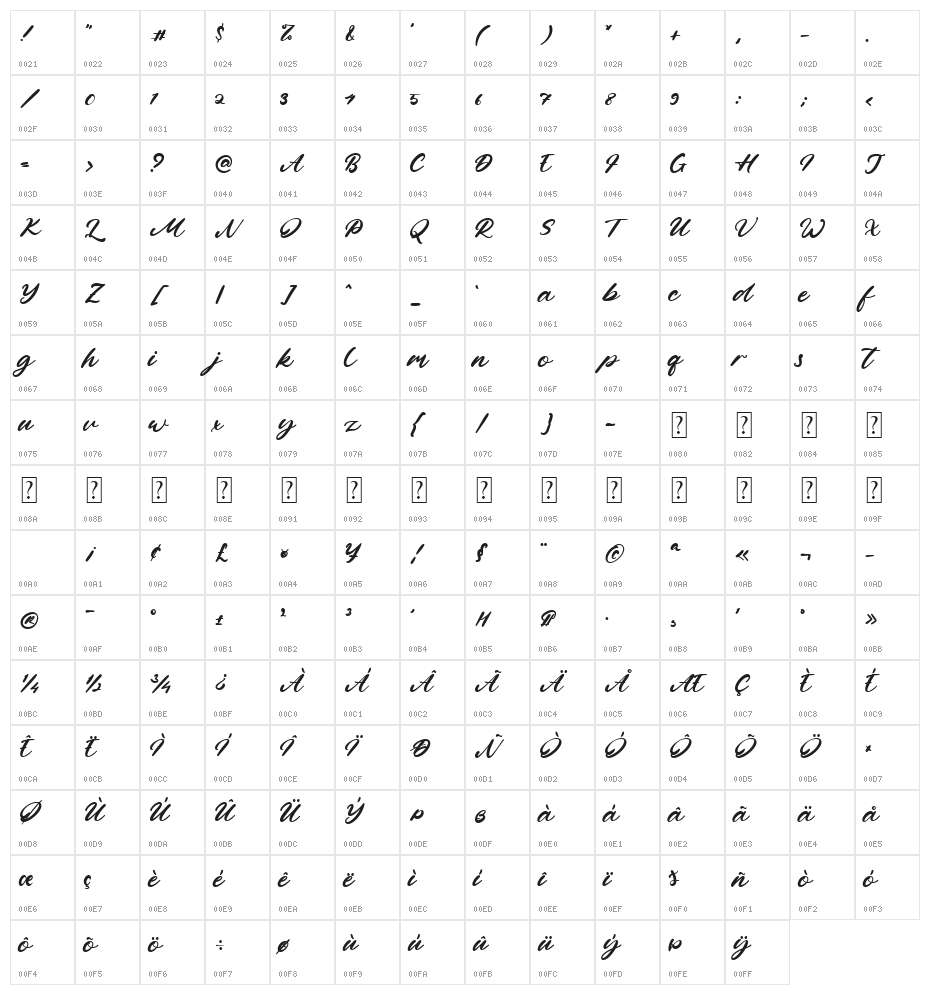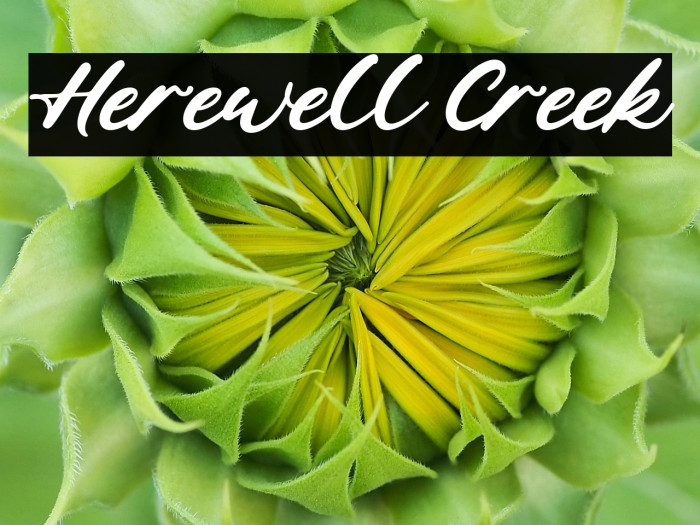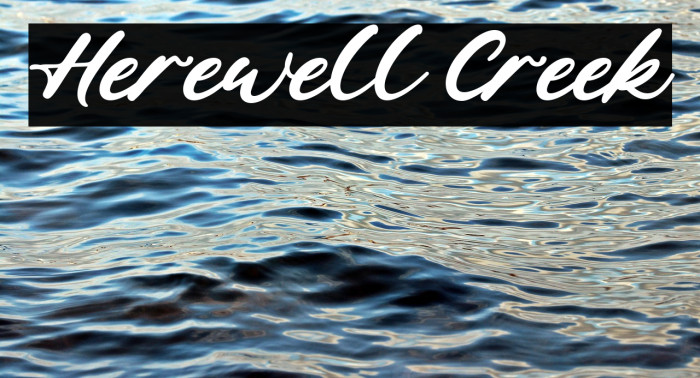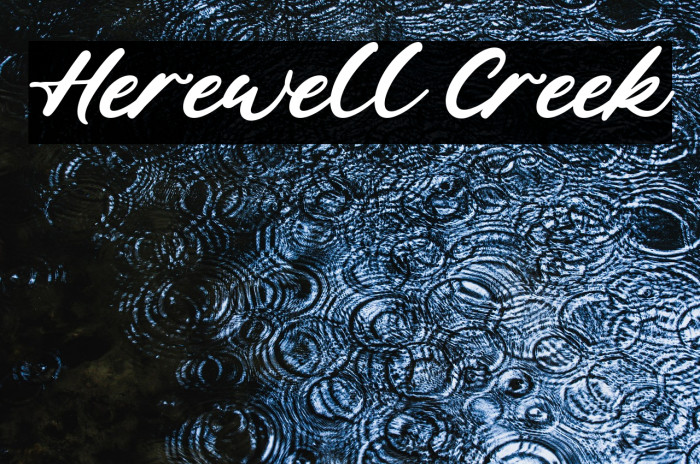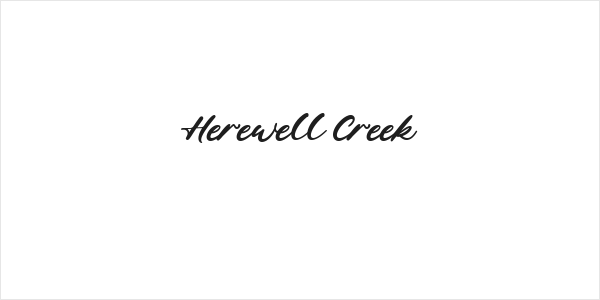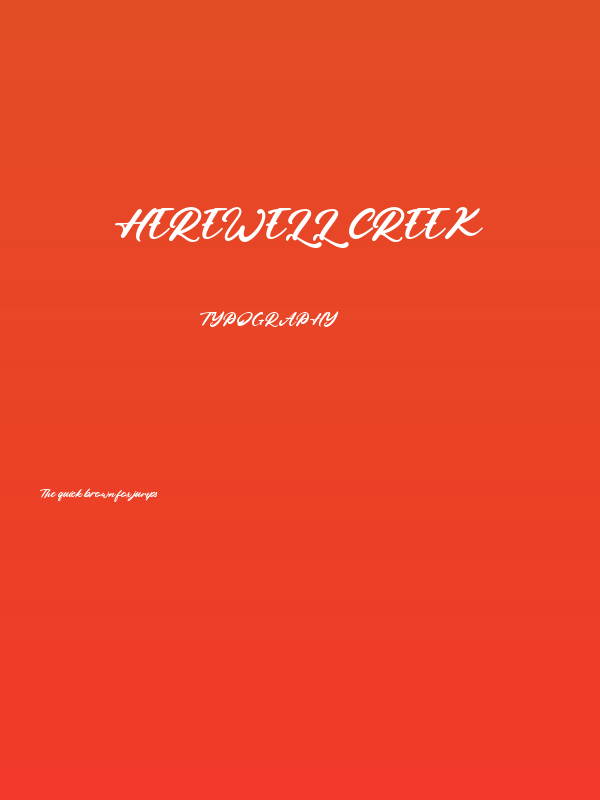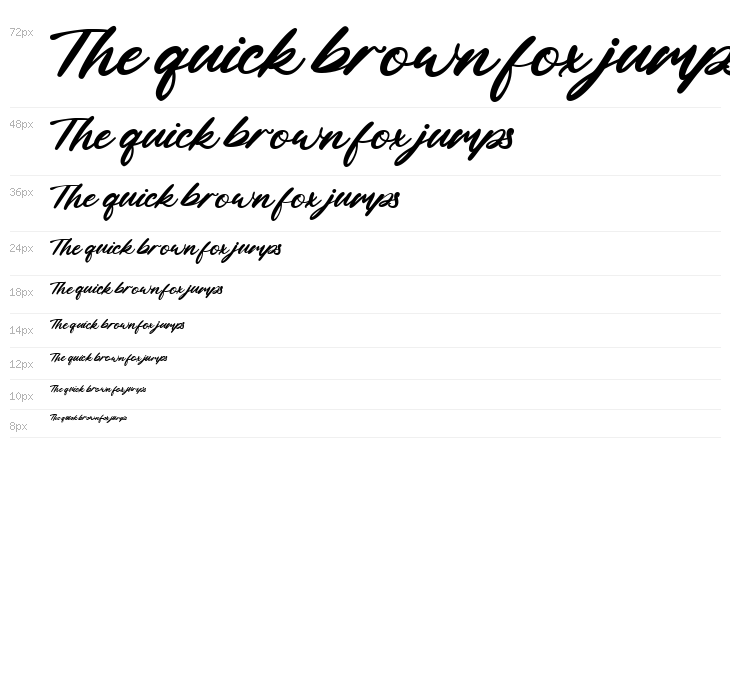
Herewell Creek Font
Herewell Creek Description
This font exudes a classic and elegant script style, characterized by its flowing and connected letterforms. The uppercase letters are bold and prominent, with a slight slant that adds a sense of movement and grace. The lowercase letters maintain a consistent style, with smooth curves and loops that enhance its readability. The numerals are well-integrated, matching the overall aesthetic with their rounded and fluid shapes. Special characters are thoughtfully designed, ensuring they complement the script's overall look. This font is perfect for projects that require a touch of sophistication and elegance.
| Proposed Projects | Ideal for wedding invitations, elegant branding, greeting cards, and upscale packaging. |